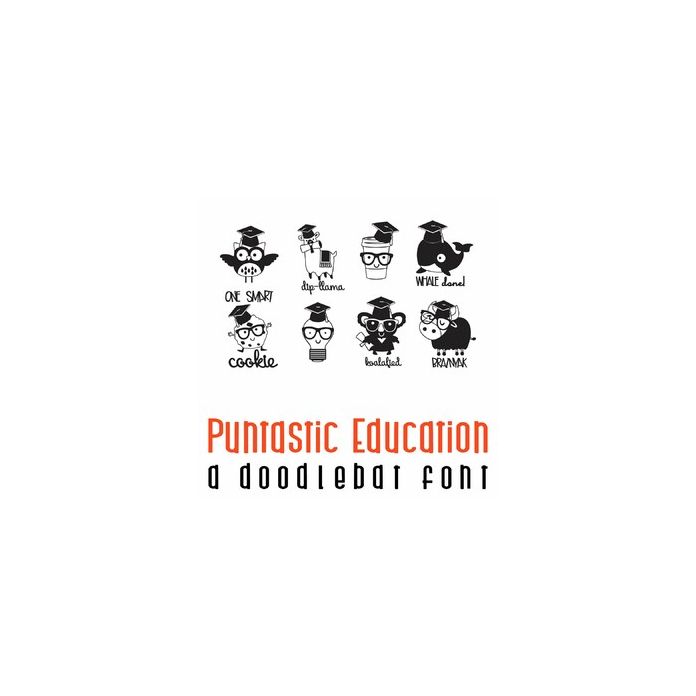
This fun doodlebat font features 30 Education and Graduation animals and puns. Perfect for cards, gifts, decor, crafts, scrap book pages, planner stickers and more!